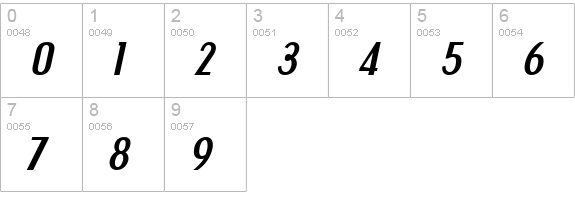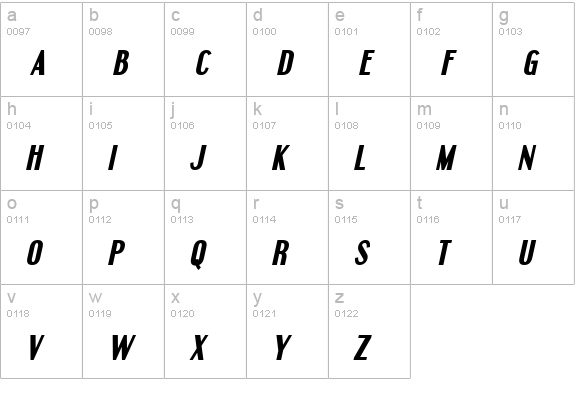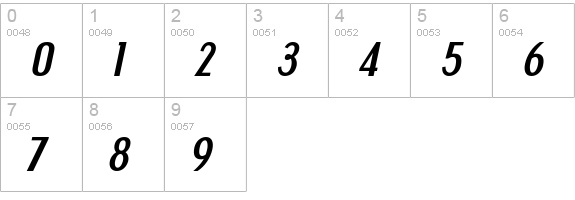
Engebrechtre Bold Italic is a strong, high-contrast, italic variant in the Engebrechtre typeface family \xE2\x80\x94 well suited to headlines, attention-grabbing titles, and strong calls-to-action.
Engebrechtre Bold Italic font is a striking and dynamic typeface that exudes elegance and sophistication. Its bold and slanted design adds a touch of modernity and flair to any project, making it perfect for headlines, titles, and branding materials. The sharp angles and fluid curves of this font create a sense of movement and energy, drawing the eye and commanding attention. What sets Engebrechtre Bold Italic apart is not only its unique design but also the fact that it is available for free download at FontsMarket.com. This means that you can easily access and use this stunning font for your personal or commercial projects without any cost. Whether you're working on a website, poster, logo, or any other design project, Engebrechtre Bold Italic is sure to make a bold statement and elevate your work to the next level. Download it today and unleash your creativity with this exceptional font.